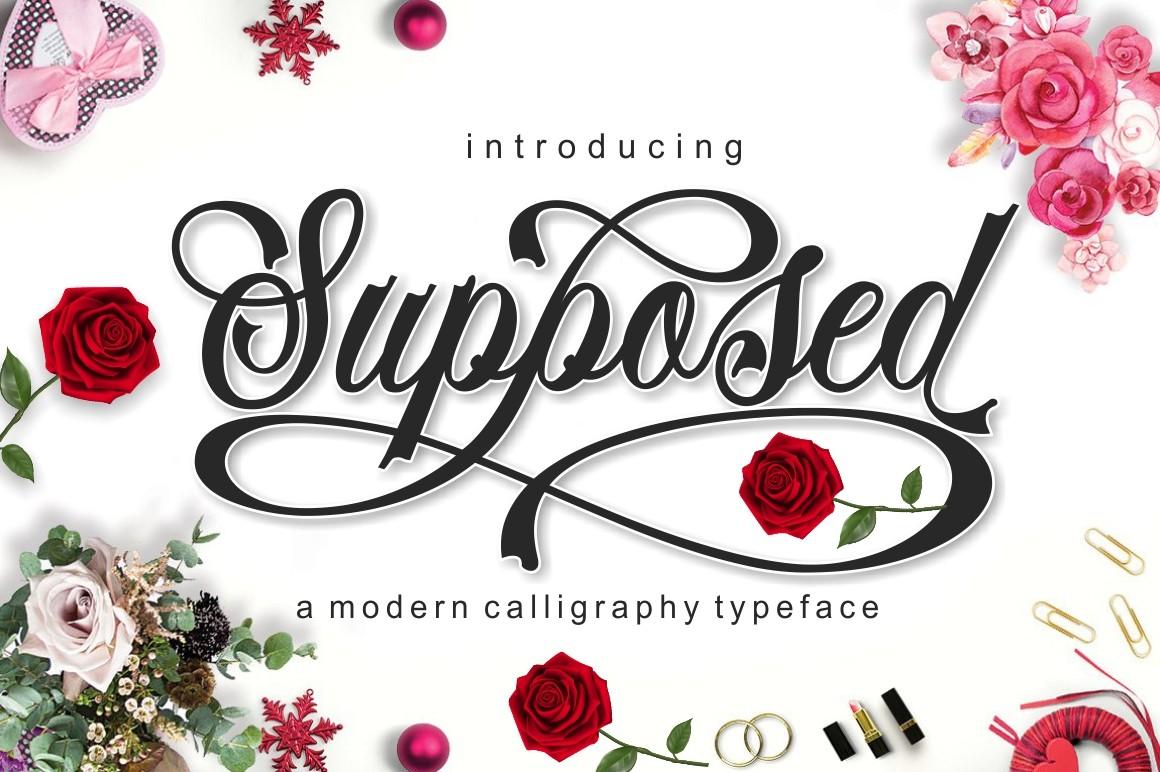
Supposed Font Description
Supposed is a beautiful, highly detailed and romantic script font. It will add a luxury spark to any design project that you wish to create! This font is PUA encoded which means you can access all of the amazing glyphs and ligatures with ease!